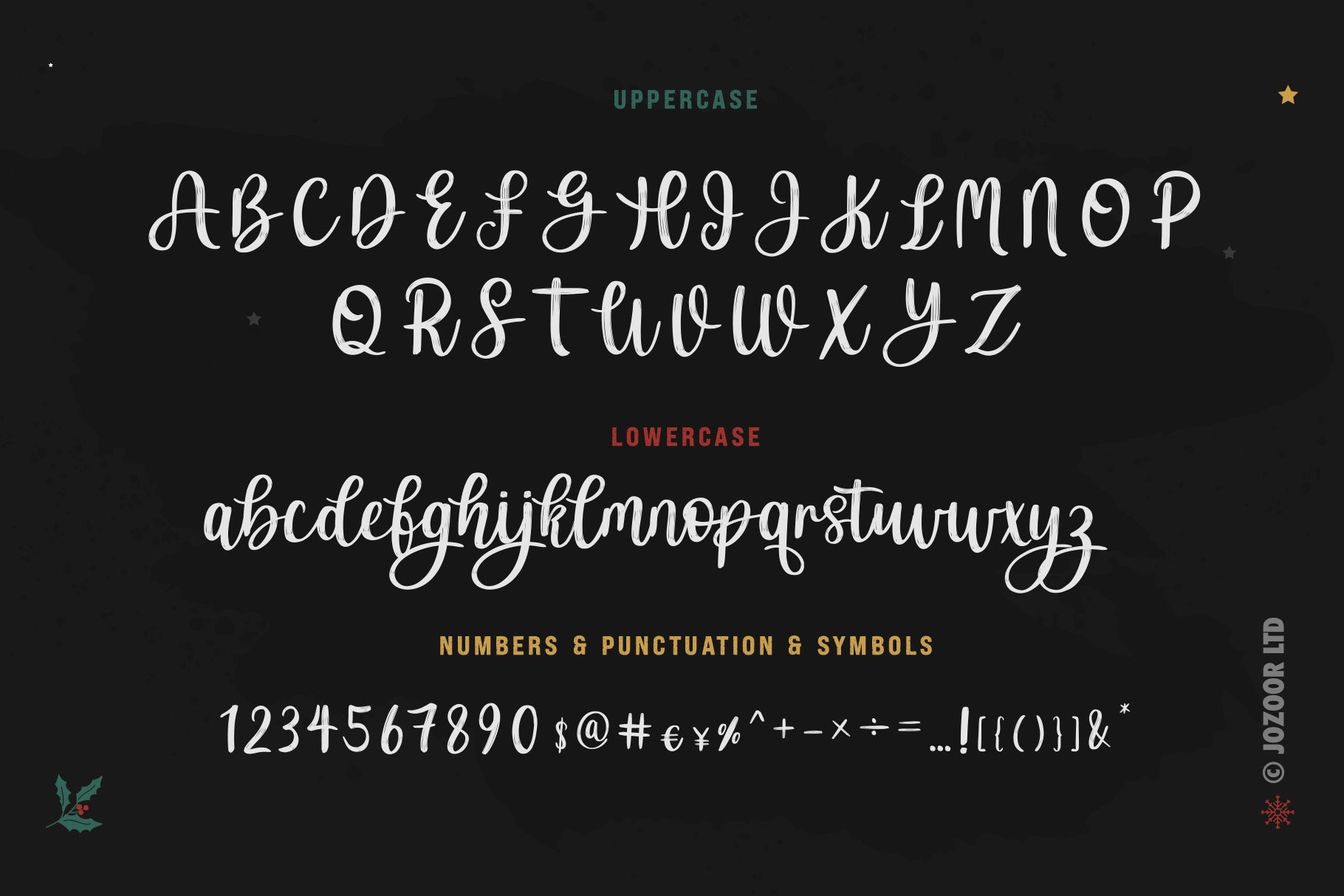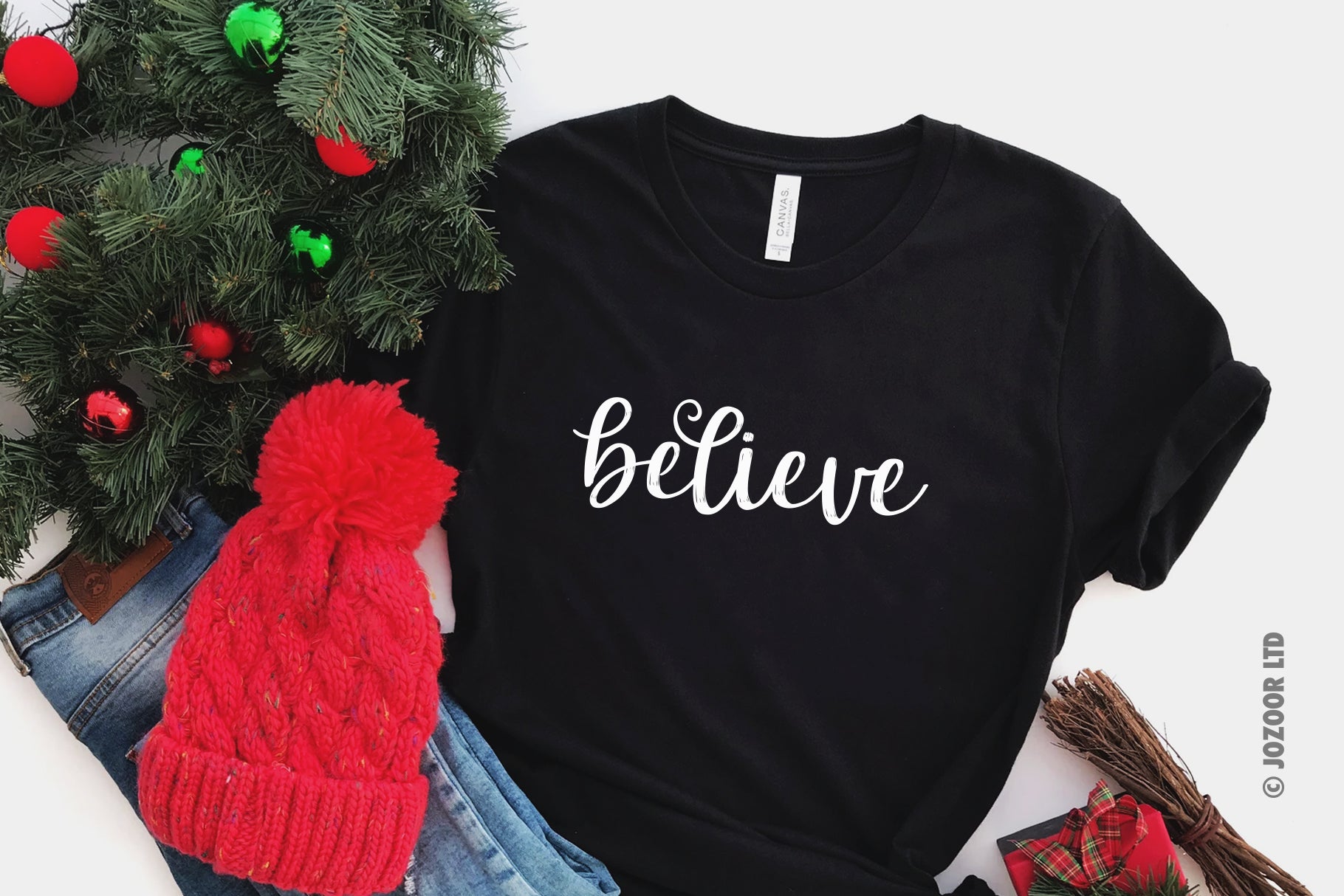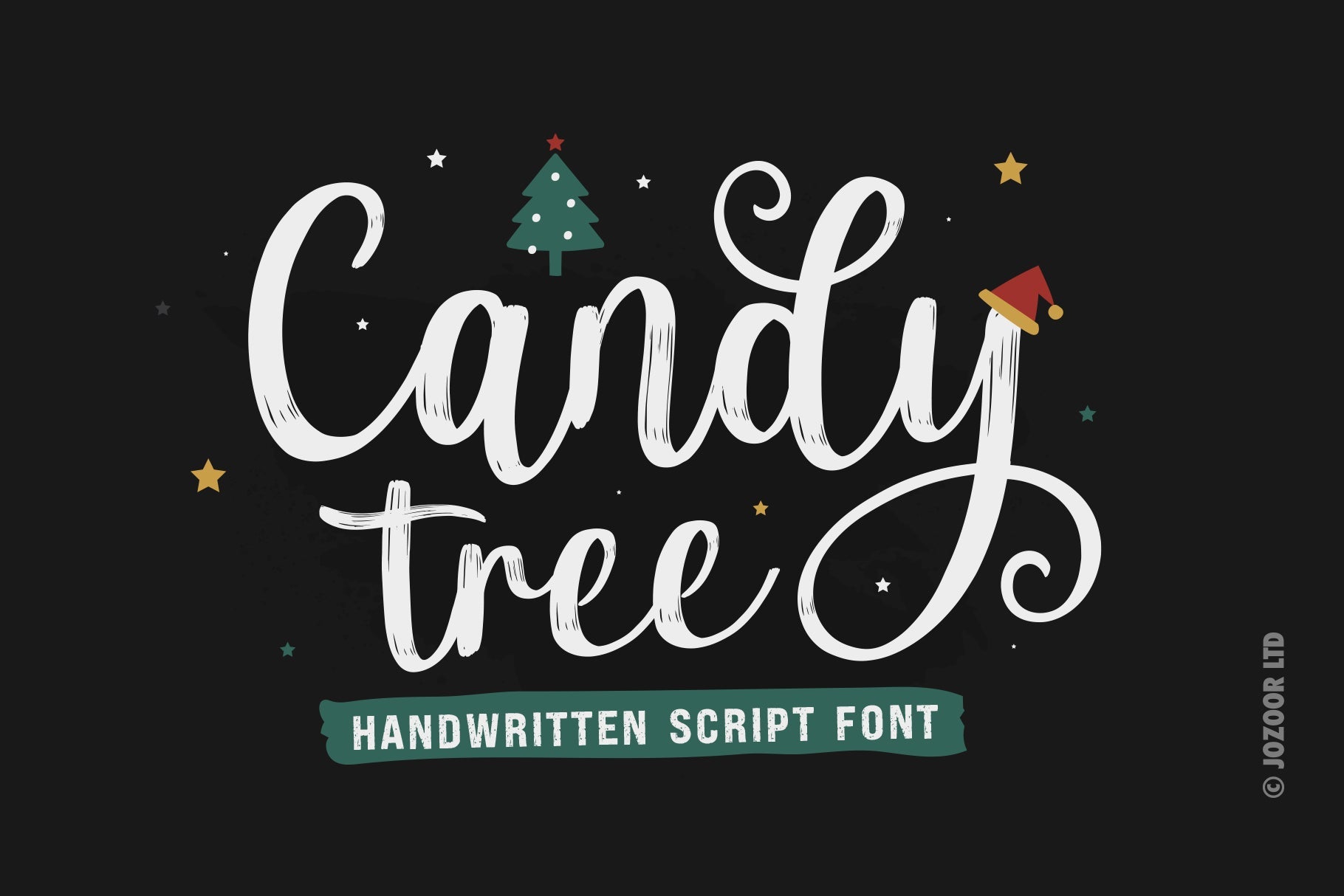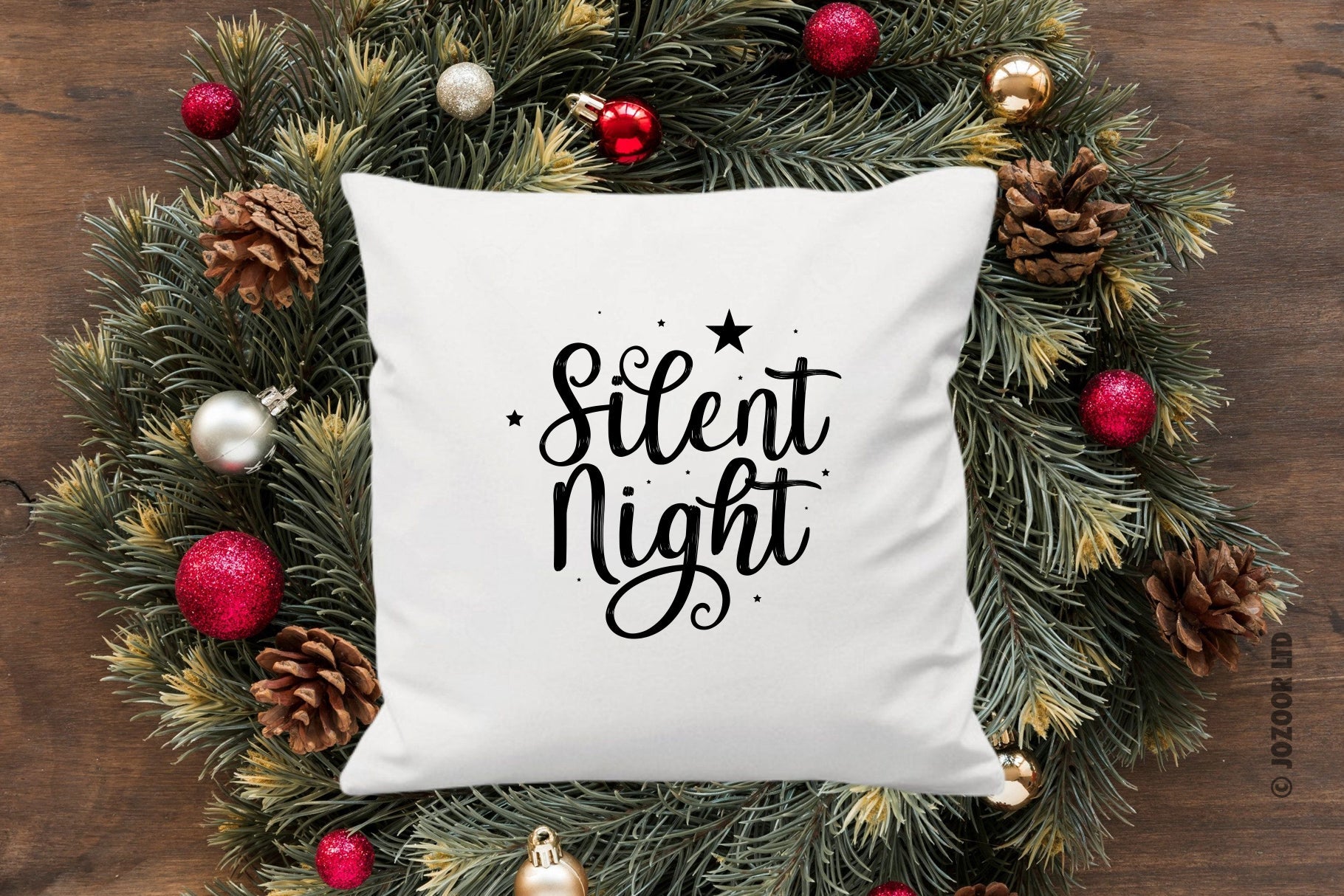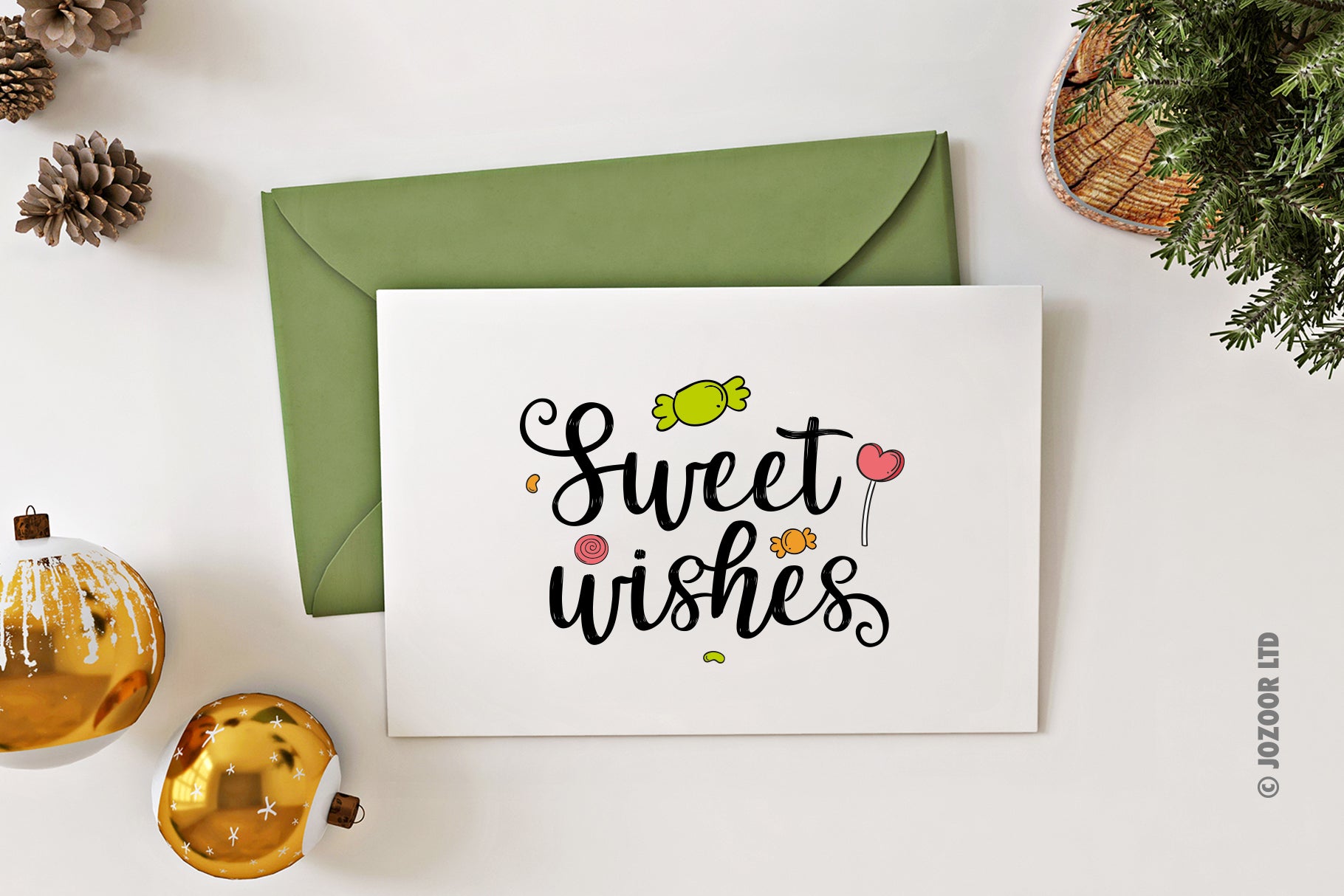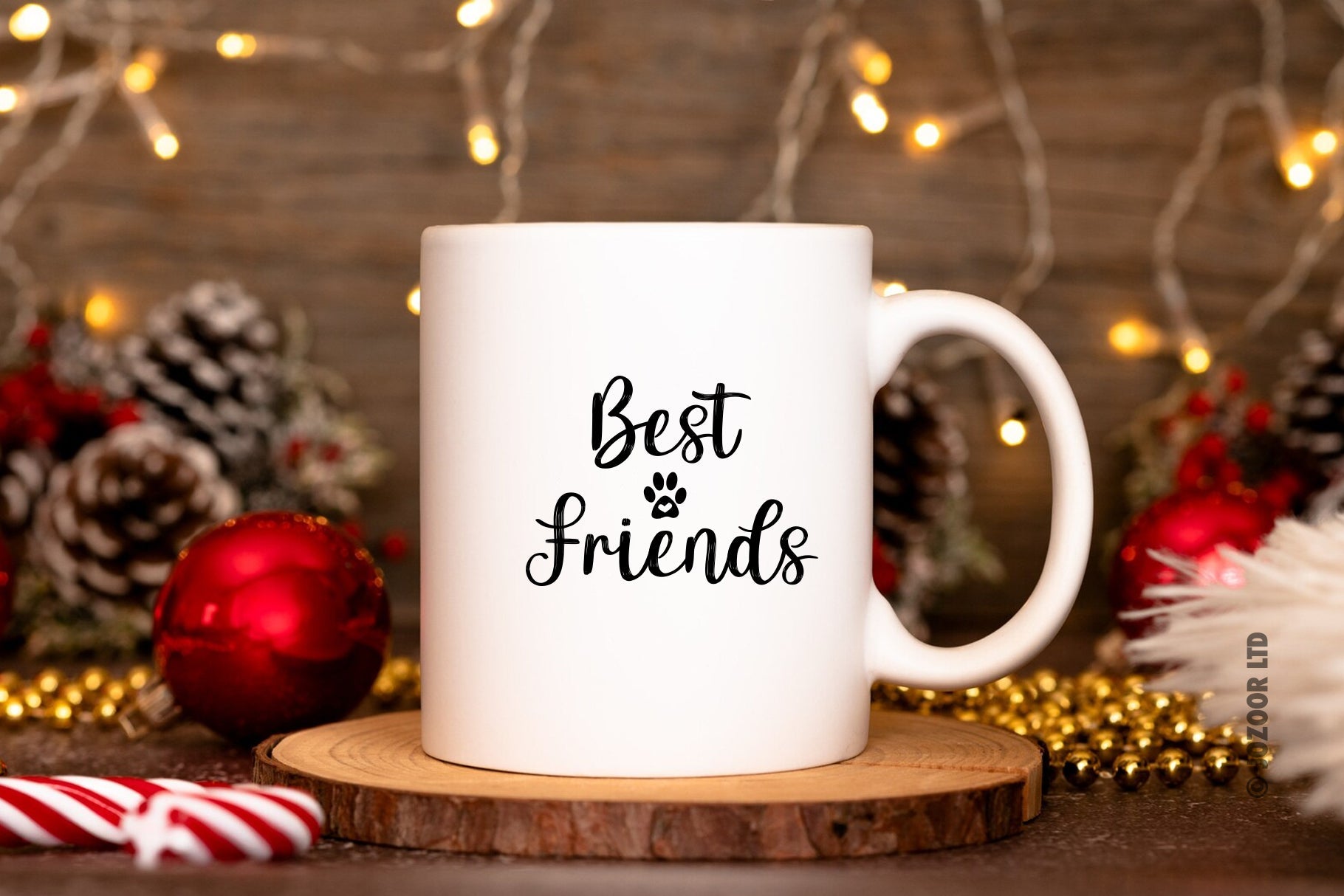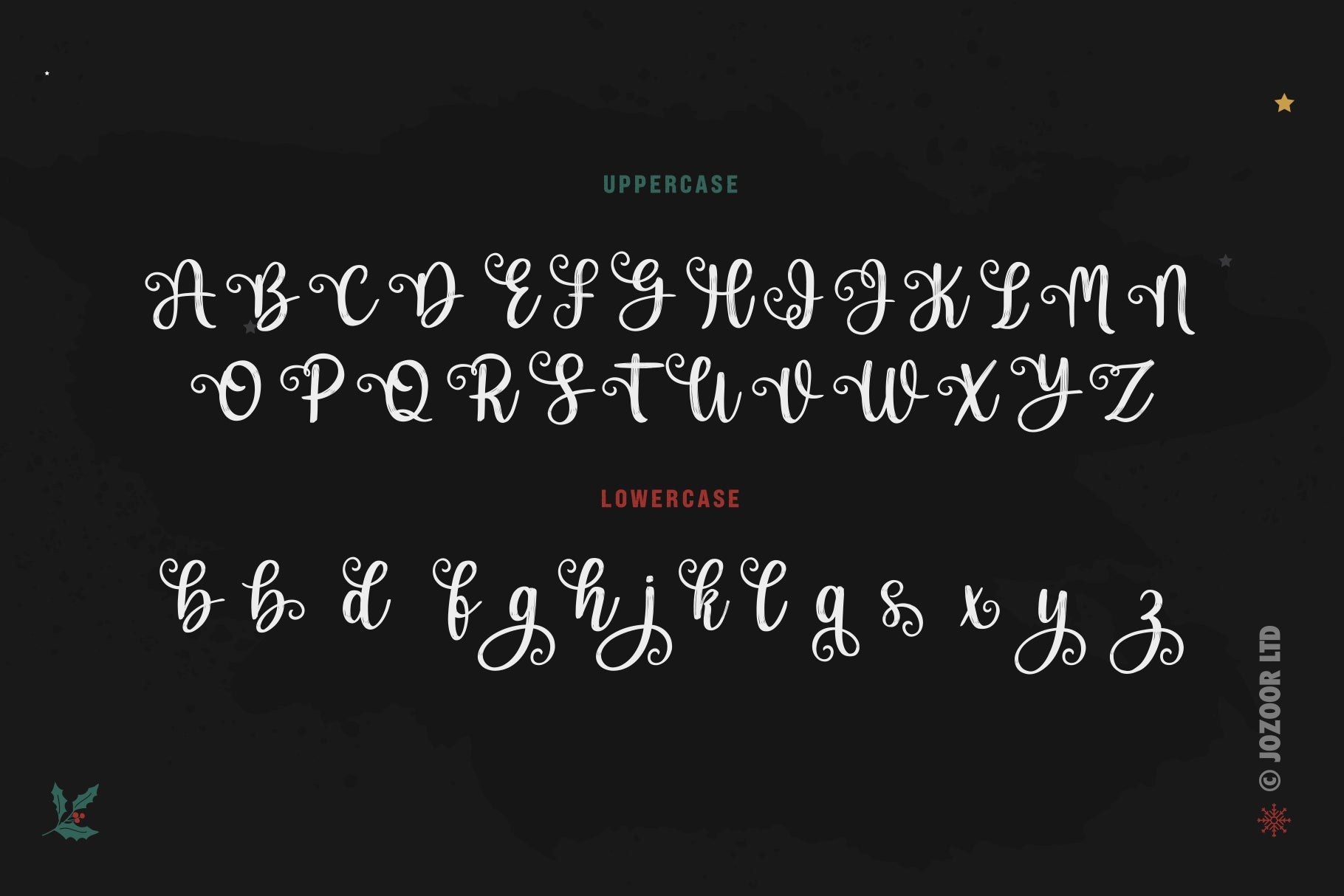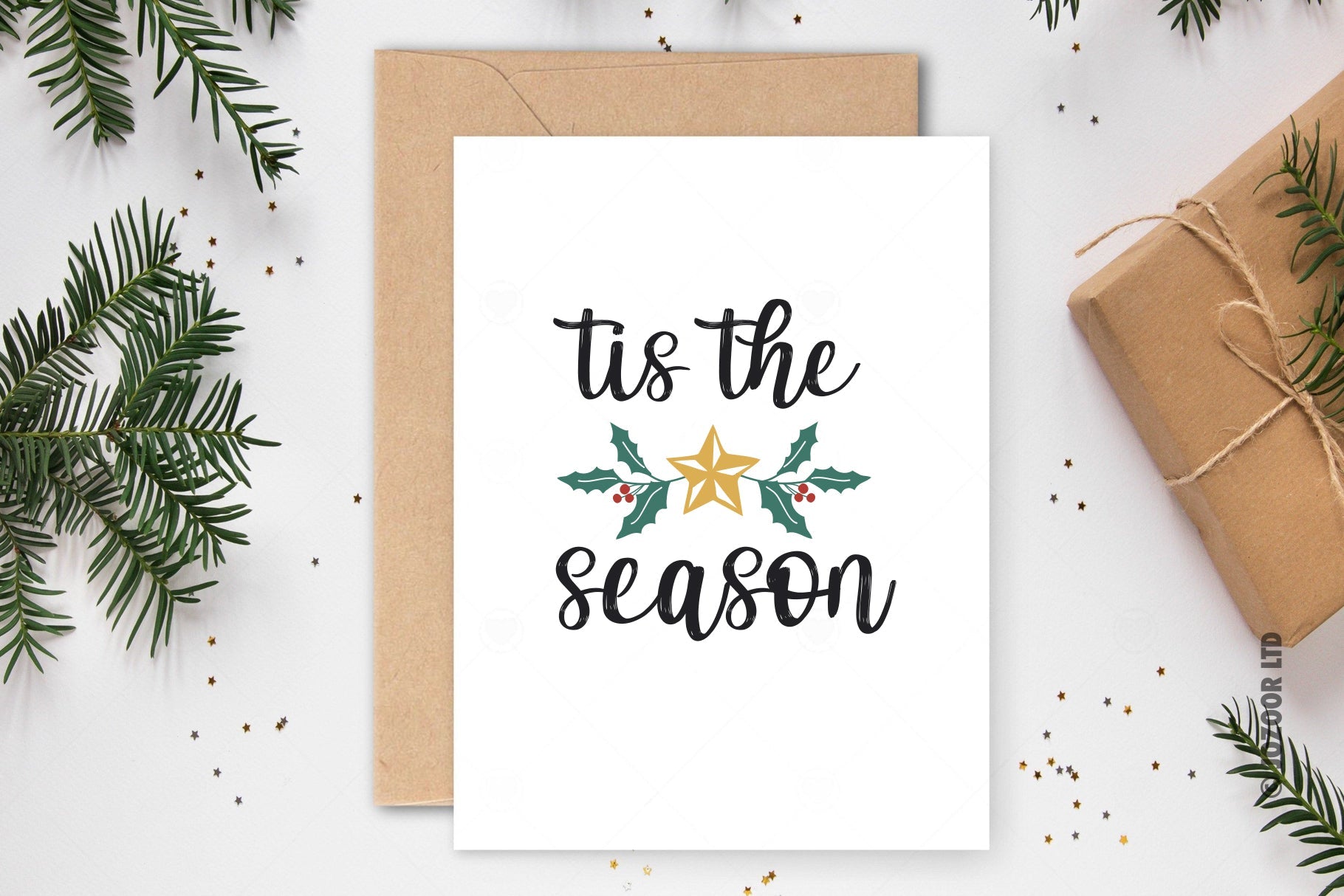
Candy Tree – Christmas Holiday Font
About Candy Tree – Christmas Holiday Font
Candy Tree is a modern script font for craft projects, Christmas designs, Holiday designs, SVG designs, shirts, crafts, farmhouse decor, wedding invitations, branding, logos, save the date cards, personal gifts cards, and more. You will get: OTF Font File. TTF Font File. SVG File. User’s Guide PDF file. Hope you enjoy, and happy designing 🙂 ♥ JOZOOR